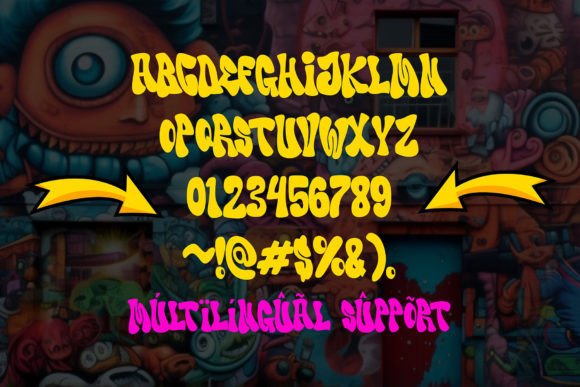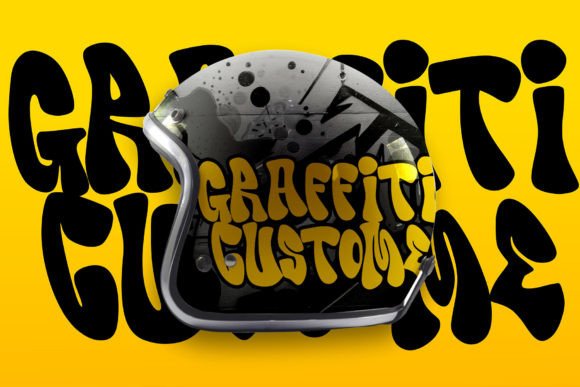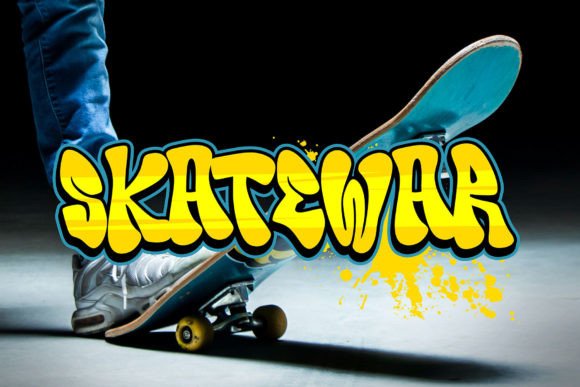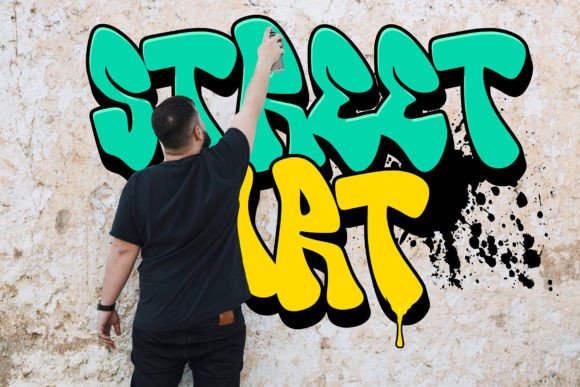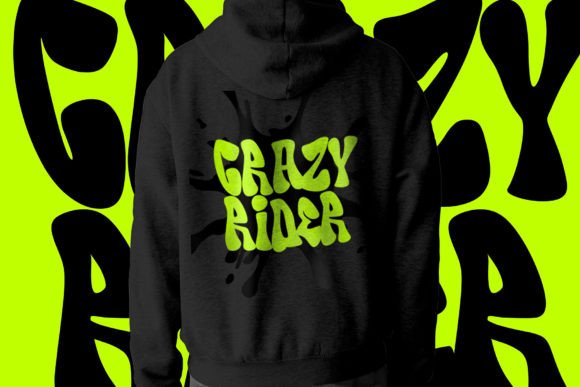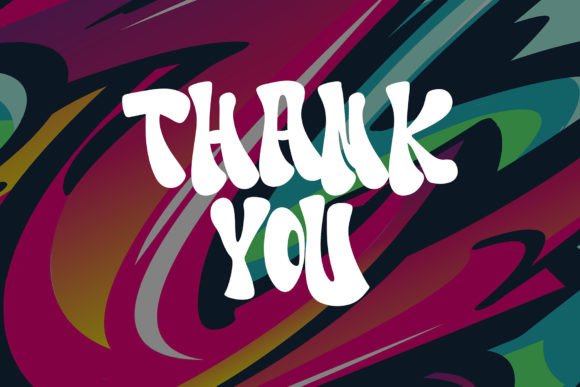
Introduction to Morton Taggity Font
Morton Taggity” is described as an impressive graffiti font.
Fonts within this category often exhibit bold, dynamic, and expressive letterforms typical of graffiti art Such fonts are commonly used in urban-themed designs, street art, posters, and various creative projects aiming for a bold and eye-catching typographic style.
Key Features of Morton Taggity Font